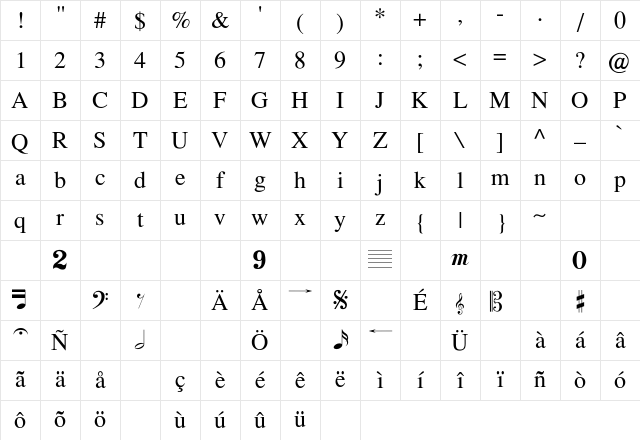
TempoFont Regular
Design Context for TempoFont
TempoFont is a composed and adaptable typeface that performs quietly and consistently across a wide range of design contexts.